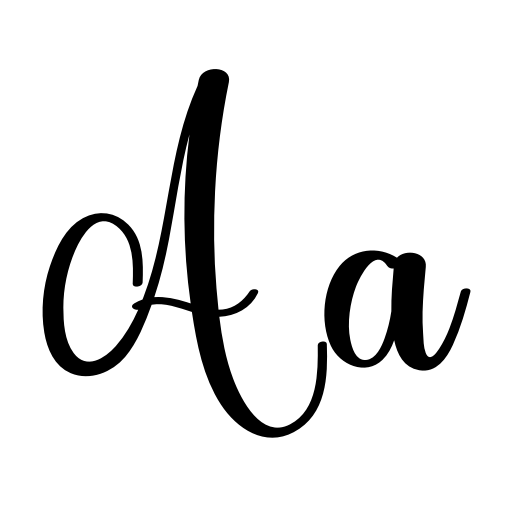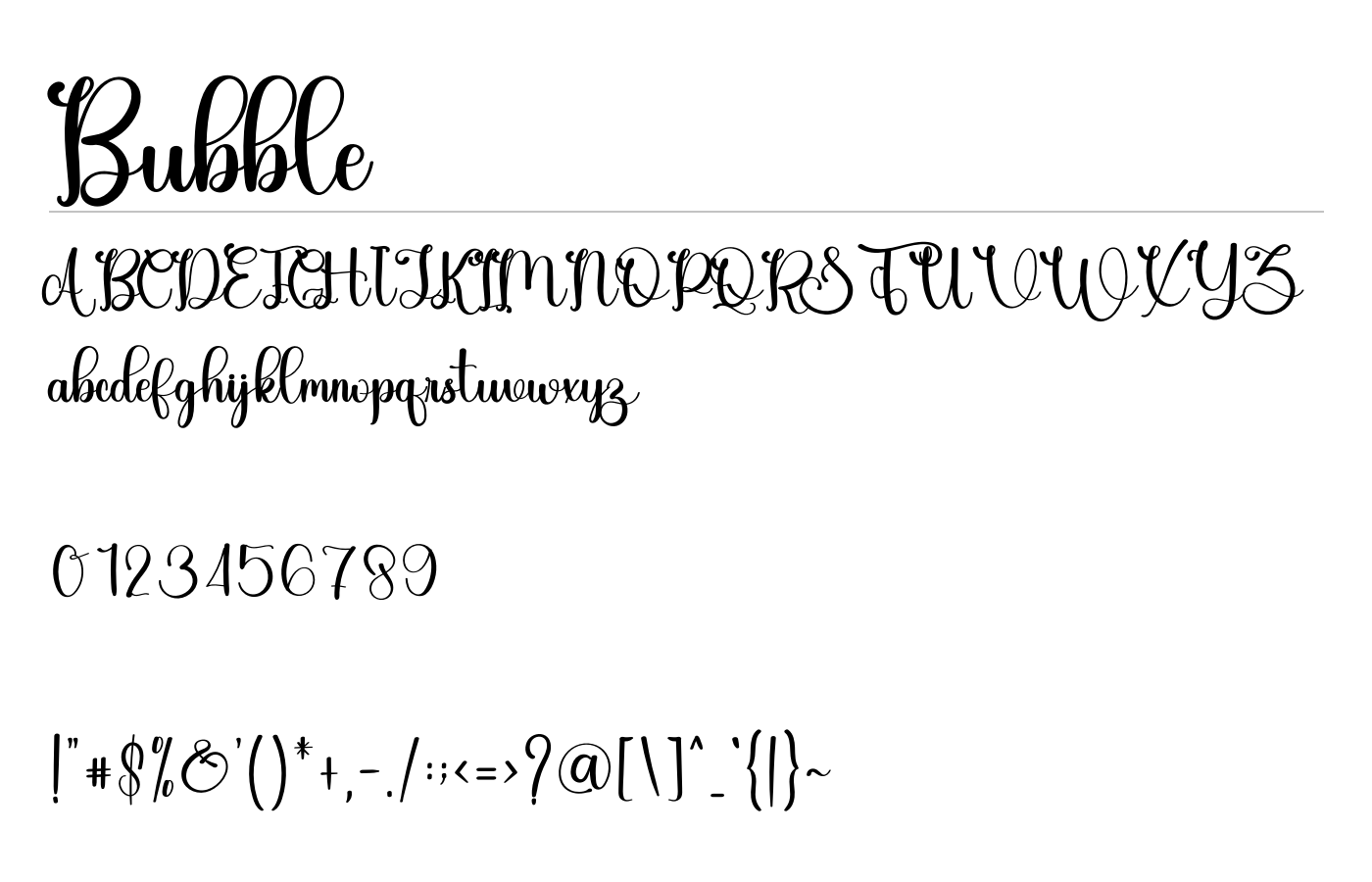
Bubble Font is a playful and elegant script typeface with smooth, flowing curves and slender strokes that evoke a whimsical, handwritten feel. Its distinctive uppercase letters showcase charming loops and swirls, while the lowercase letters maintain readability with a delicate touch, making it perfect for invitations, logos, and creative branding that seek a friendly yet sophisticated vibe. This font’s graceful style works best in decorative headlines or accents where it adds a personal, artistic flair.
Bubble Font
About Bubble Font